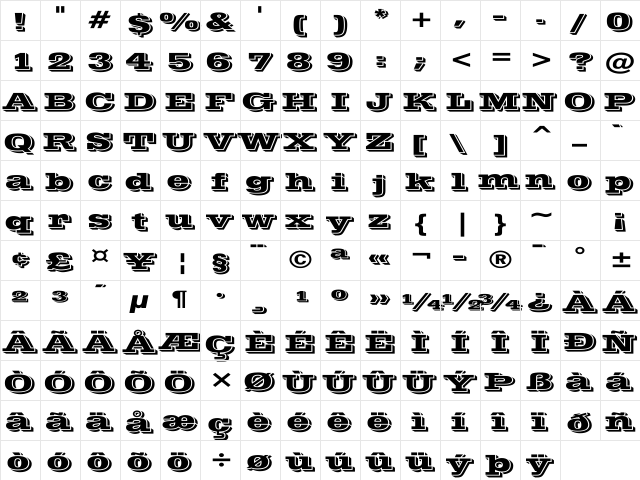
Vinera Wd Regular Free Font
Vinera Wd Regular
Vinera Wd Family
Vinera Wd Regular
Complete Vinera Wd Regular glyph index. Displaying only characters natively supported by Vinera Wd Regular font.
Design Context for Vinera Wd
Vinera Wd is a composed and adaptable typeface that performs quietly and consistently across a wide range of design contexts.